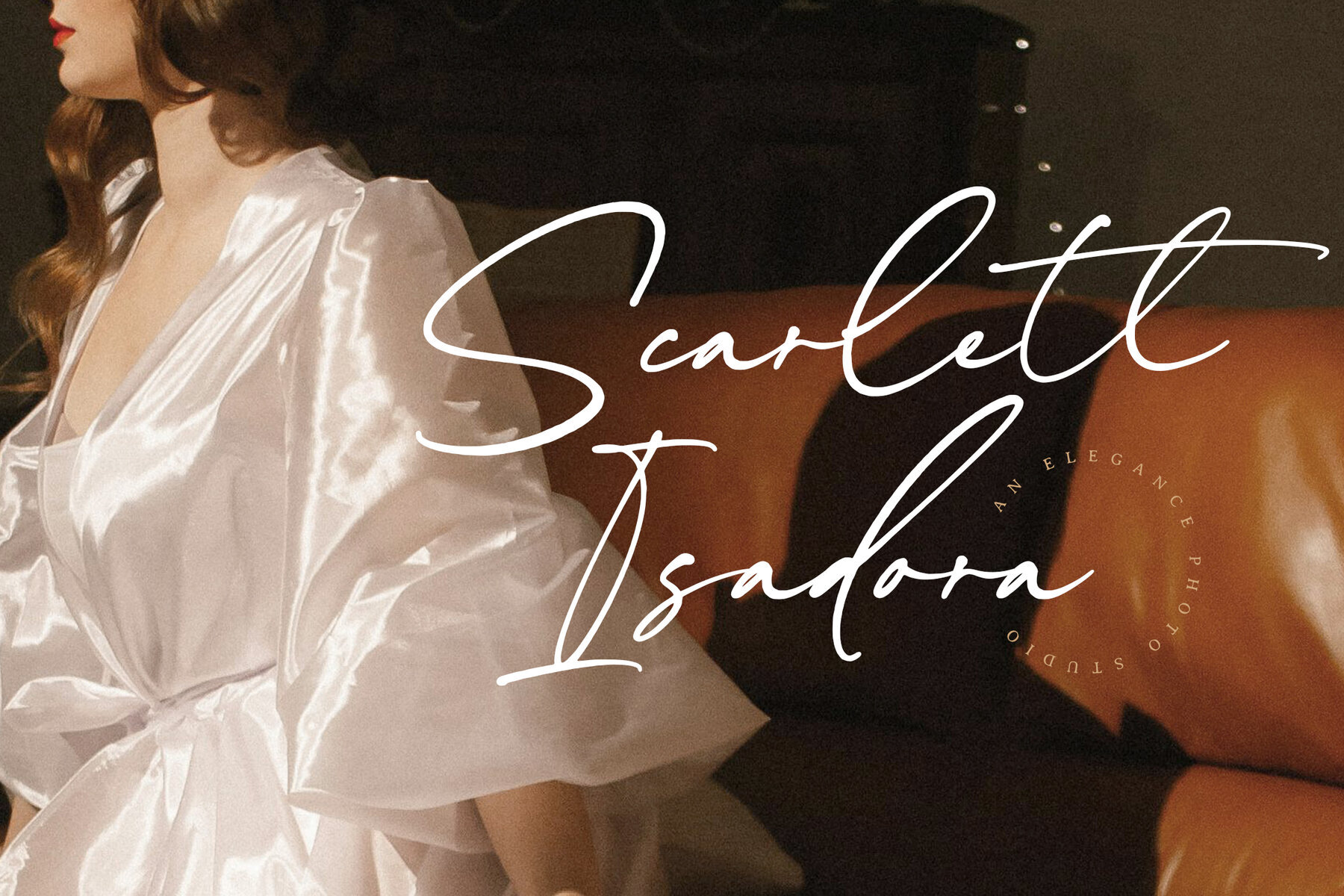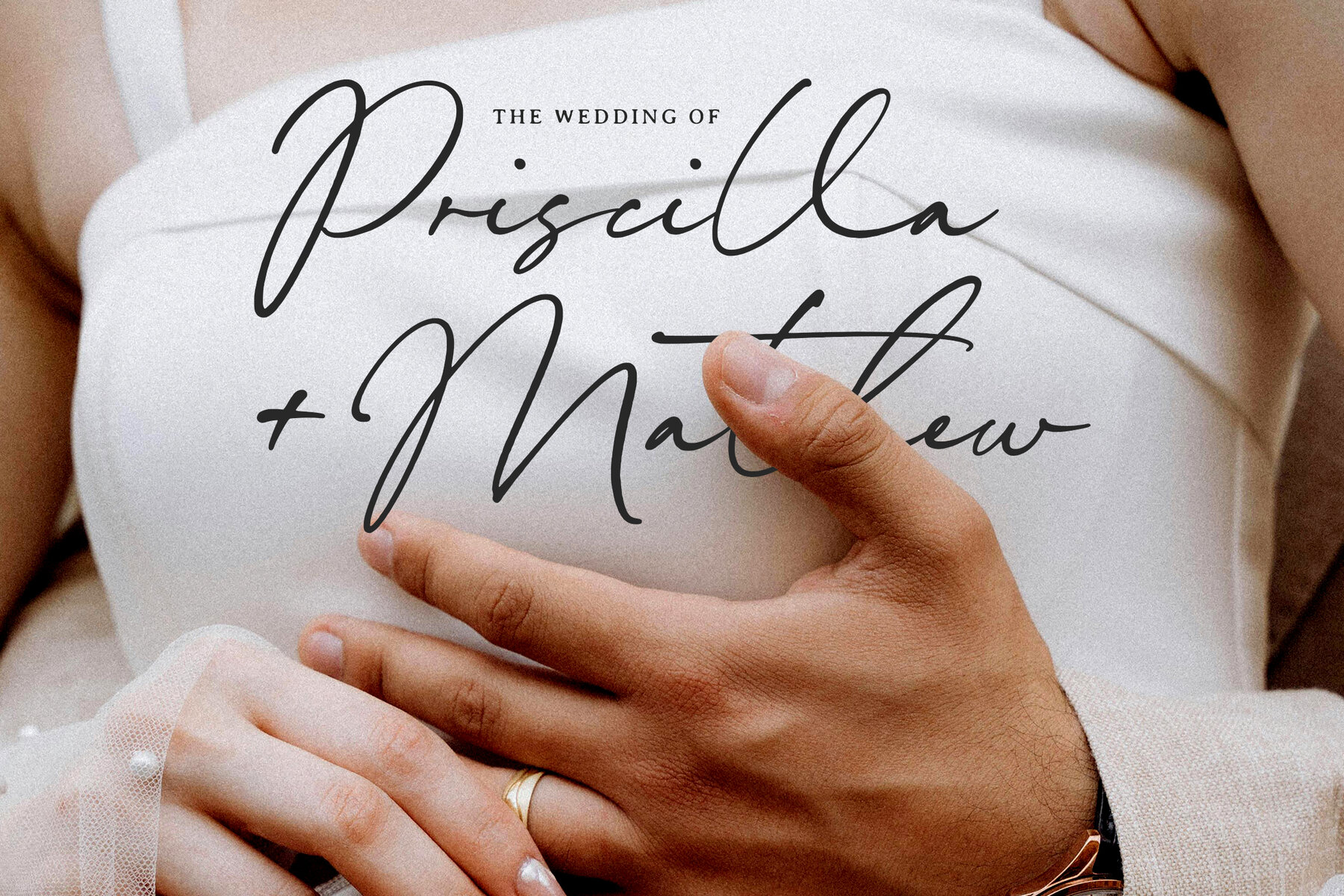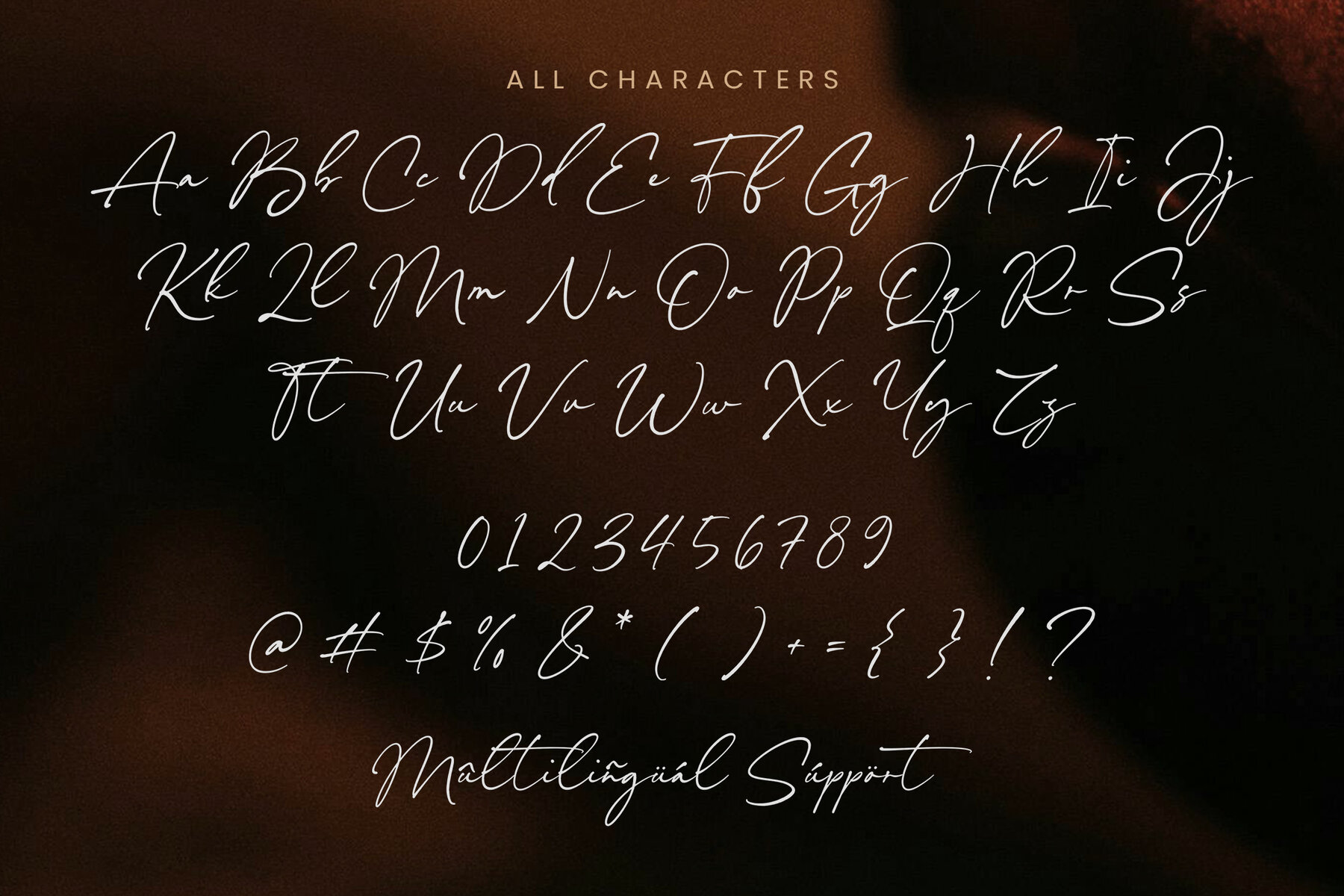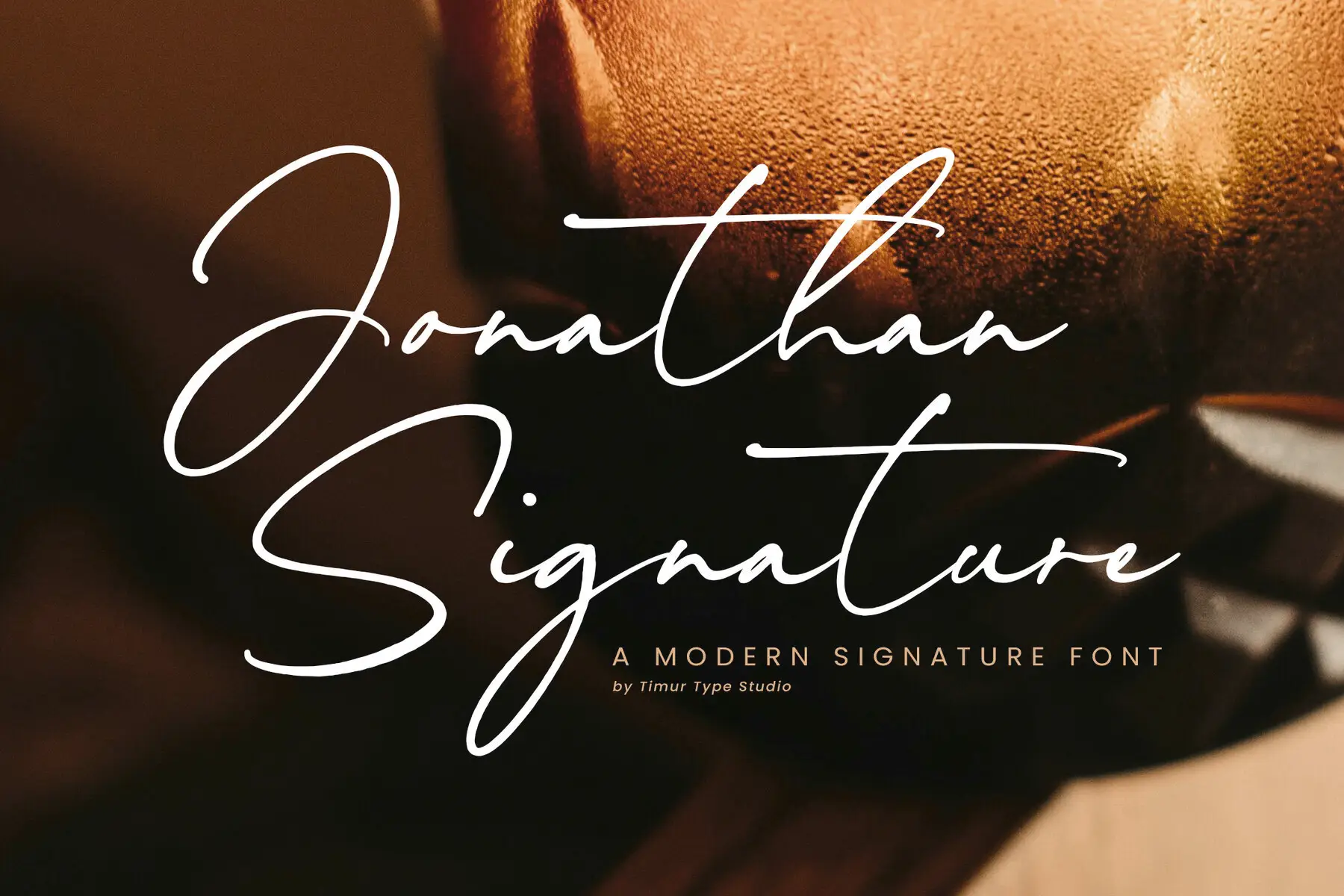
Jonathan Signature Font
Jonathan Signature
Enhance your designs with Jonathan Signature, a modern font that exudes elegance and style. Combining fluid cursive strokes with a contemporary flair, this font introduces a sleek signature appeal, perfect for logos, invitations, and branding. Its smooth, flowing lines provide the handwriting effect you've been searching for, striking the perfect balance between refinement and casual charm.Jonathan Signature Font